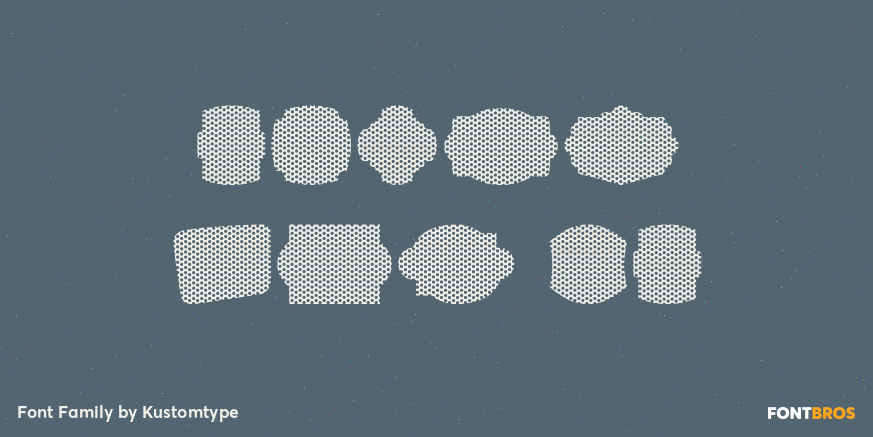
Label Pro XL
About Label Pro XL
LABEL PRO XL is a massive high quality collection of classic, modern and vintage labels. Containing more than 150 glyphs, LABEL PRO XL is convenient and essential in numerous business sectors; such as food or non-food labeling, B2B and B2C sales; stickers,…